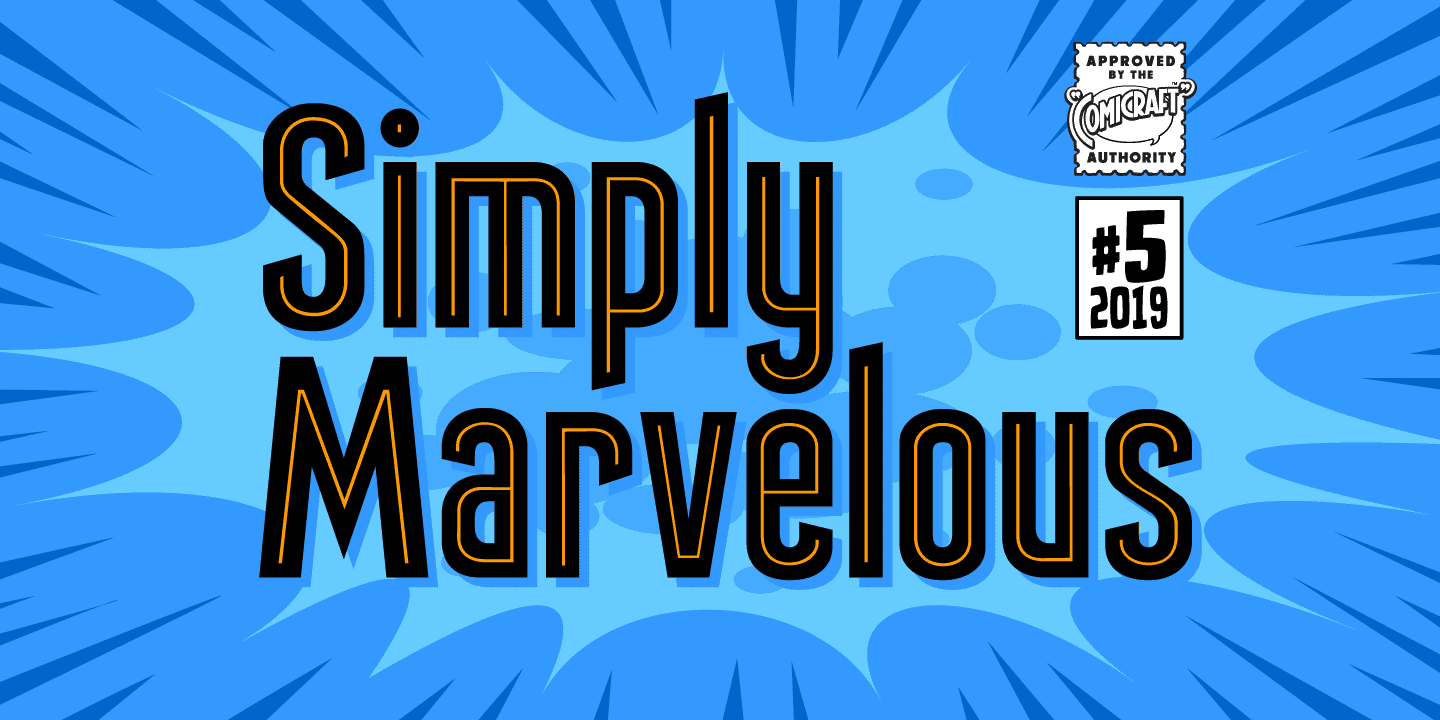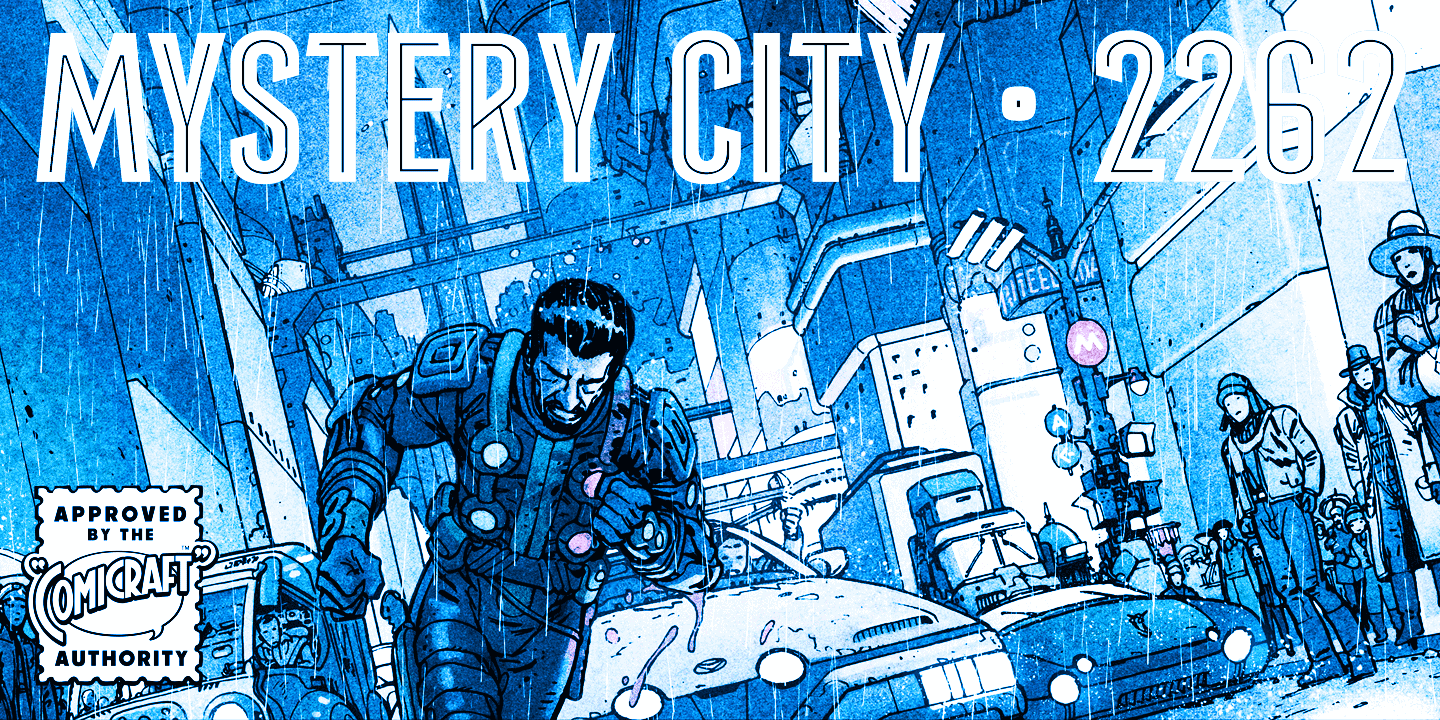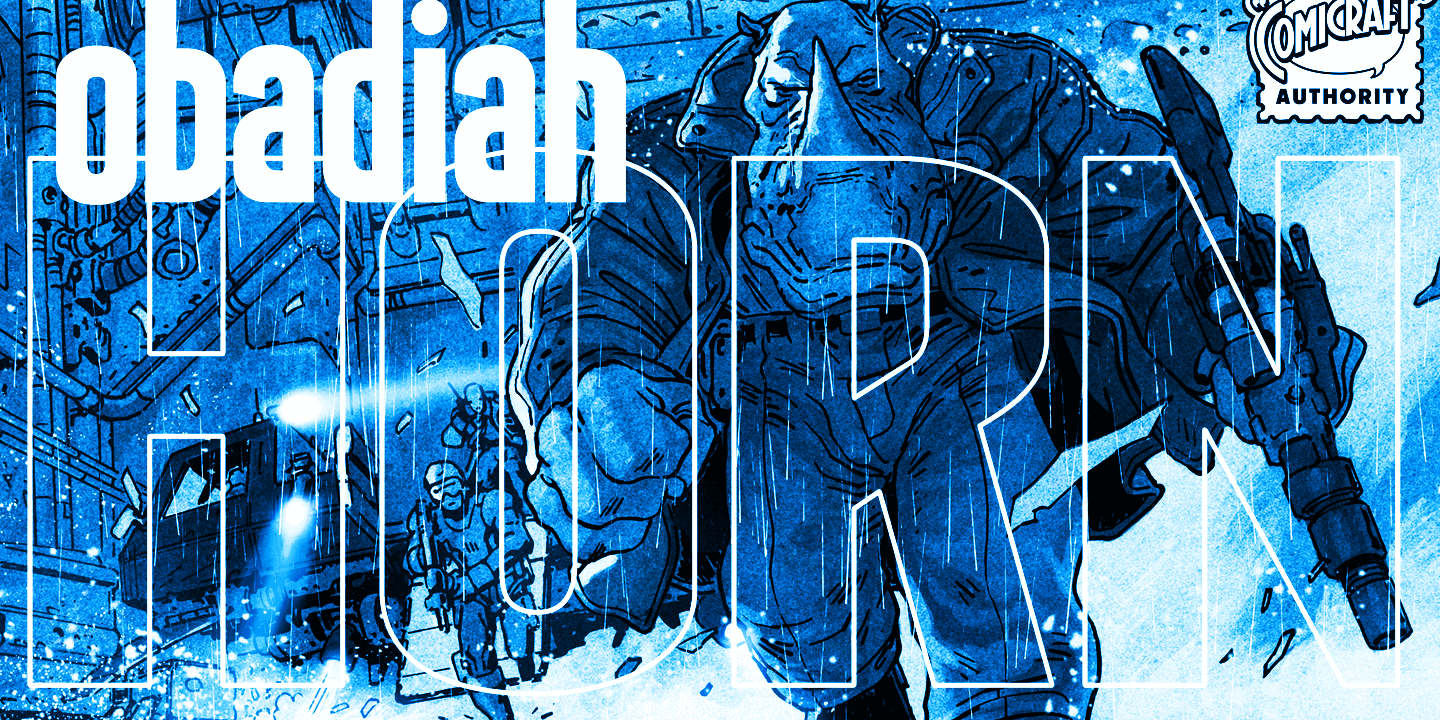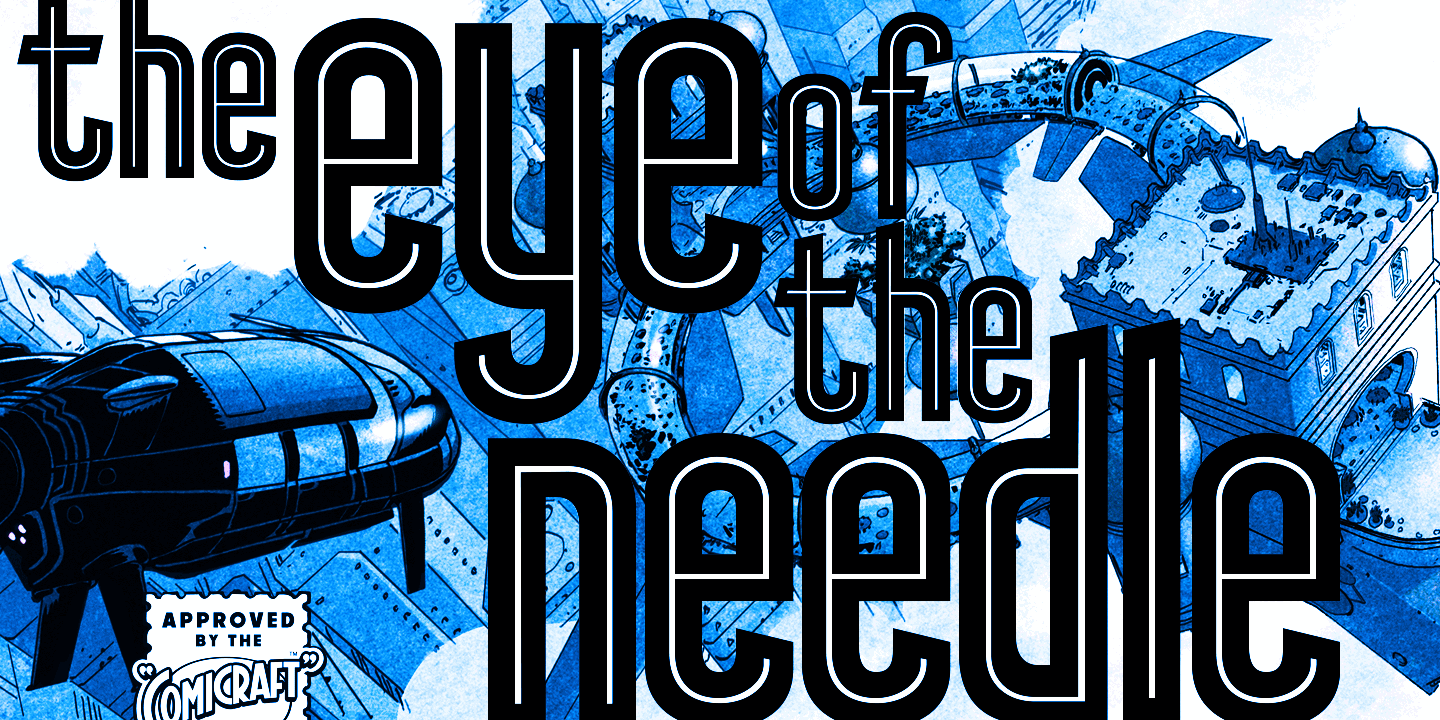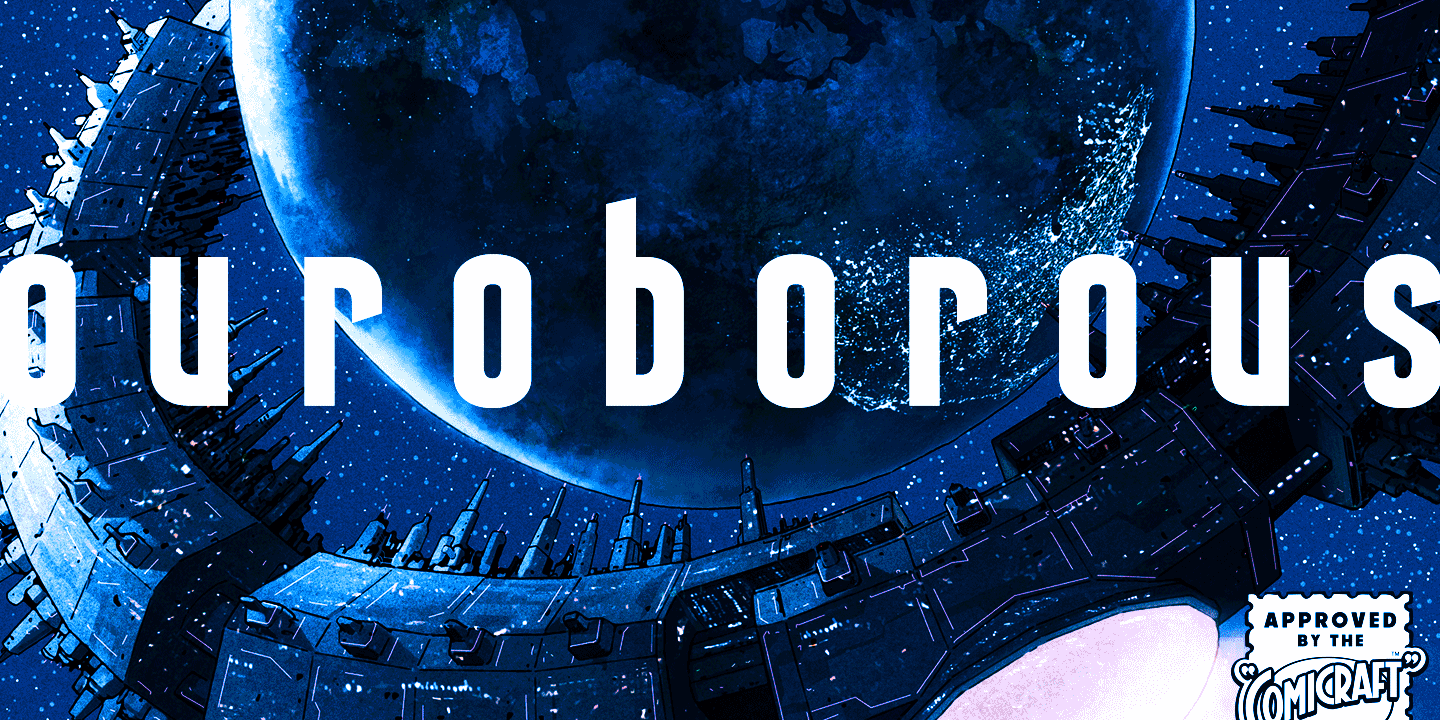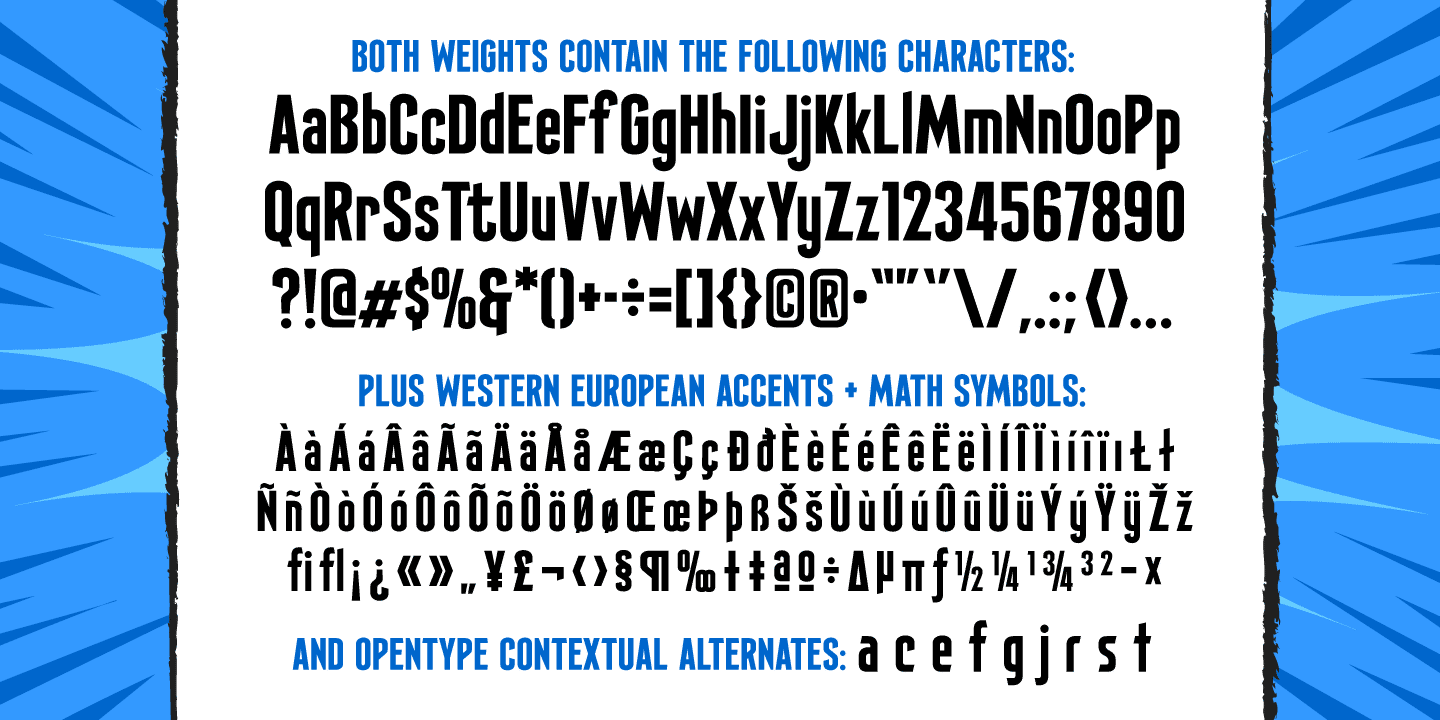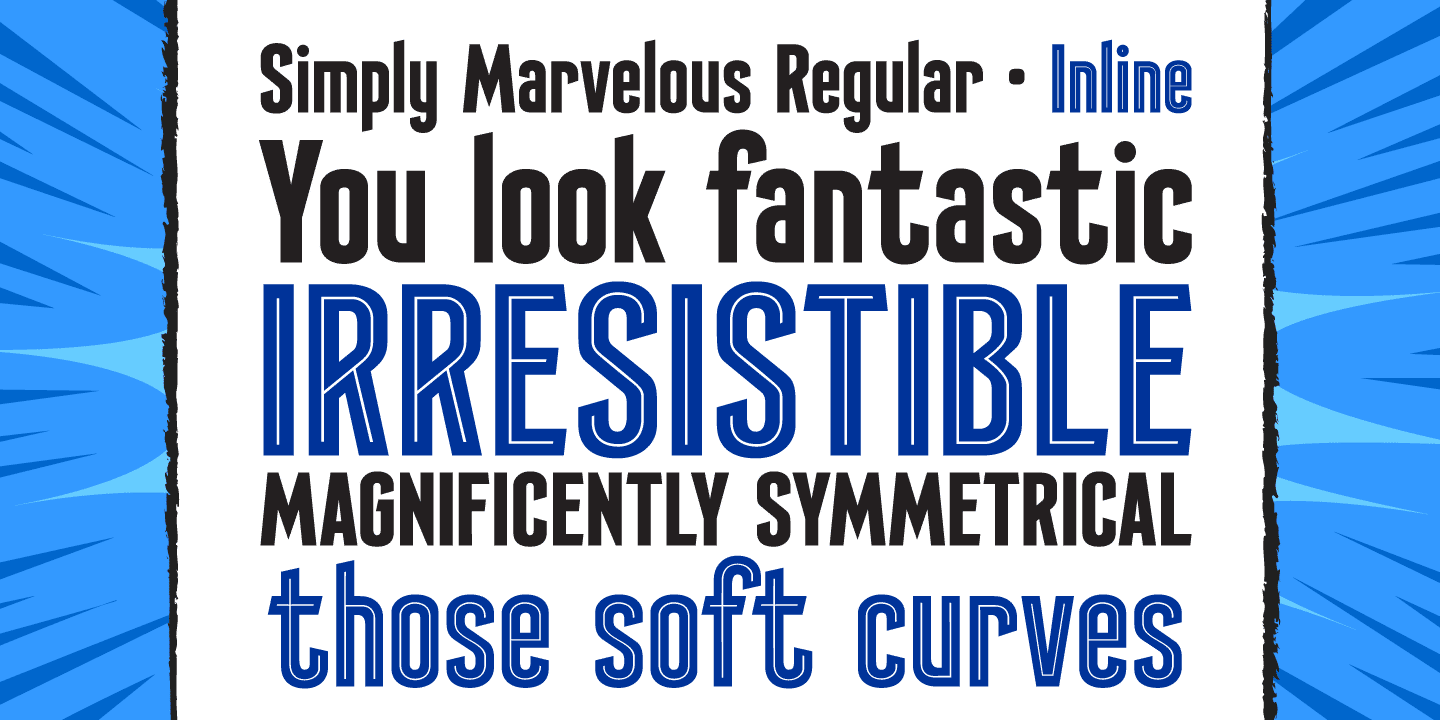
Simply Marvelous
Darling, you don't just look GOOD, you look FANTASTIC! IRRESISTIBLE! IMMACULATE! Those soft curves, those sharp lines, those INLINES... that MAGNIFICENT symmetry. This is a face that could launch a thousand spaceships, a face that doesn't care if you feel good, because Heavens to Betsy, you LOOK good. Just utter those magic words: Simply Marvelous.